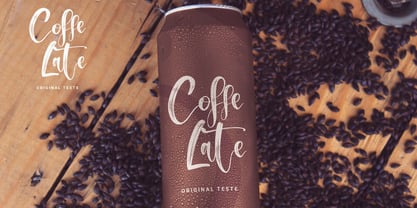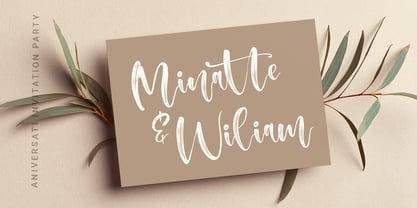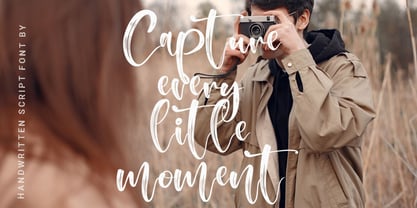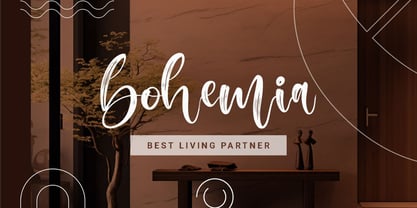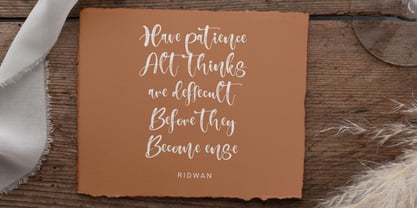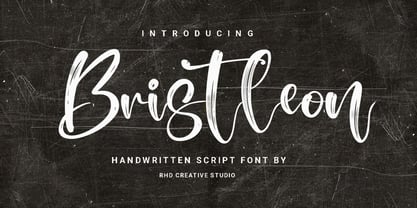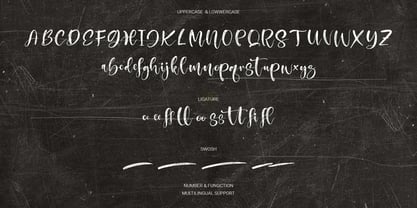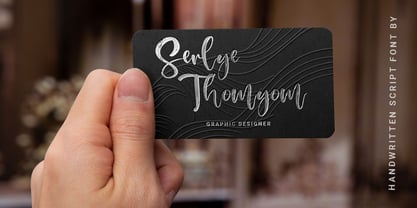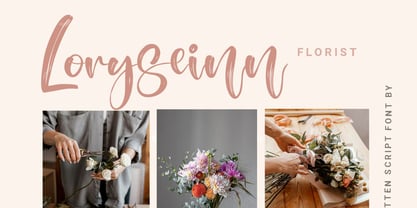
Bristleon
by RHD Creative
The Bristleon Font Family and published by RHD Creative. Bristleon contains 1 styles. More about this family
Hello everyone, I would like to introduce Bristleon - Handwritten Script Font. Bristleon - Handwritten Script Font with Handmade character. Bristleon - Handwritten Script Font, Modern font to make your design project stand out! Bristleon a perfectly choice for any creative endeavor, creating, modern, chic, lifestyle design such as logotype, title, cover, branding, invitations, wedding designs, display and magazine, social media posts, advertisements, printed quotes, product packaging, corporate brand, product designs, labels, photography, watermarks, special events and any other project with modern touch. FEATURES - Uppercase and Lowercase letters - Numbering and Punctuations - Ligature - Multilingual Support - Works on PC or Mac - Simple Installation - Support Adobe Illustrator, Adobe Photoshop, Adobe InDesign, also works on Microsoft Word Thank you for your purchase! Hope you enjoy with our font! FEATURES - Uppercase and Lowercase letters - Numbering and Punctuations - Ligature - Multilingual Support - Works on PC or Mac - Simple Installation - Support Adobe Illustrator, Adobe Photoshop, Adobe InDesign, also works on Microsoft Word Thank you for your purchase! Hope you enjoy with our font!